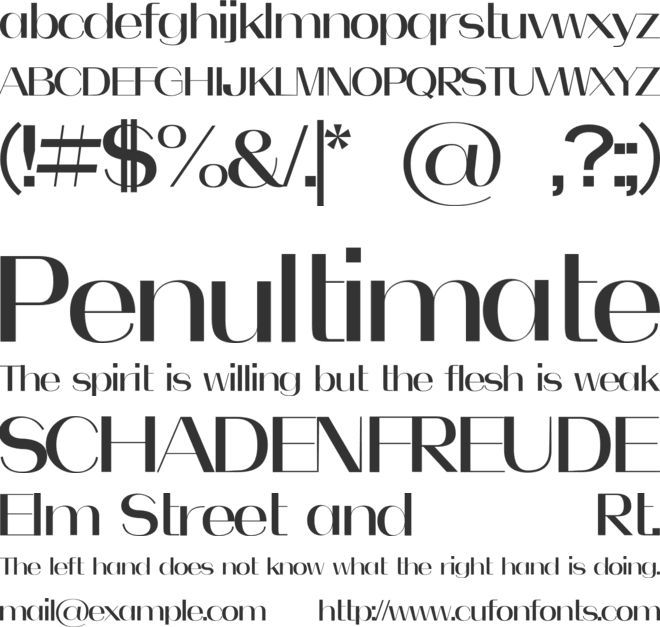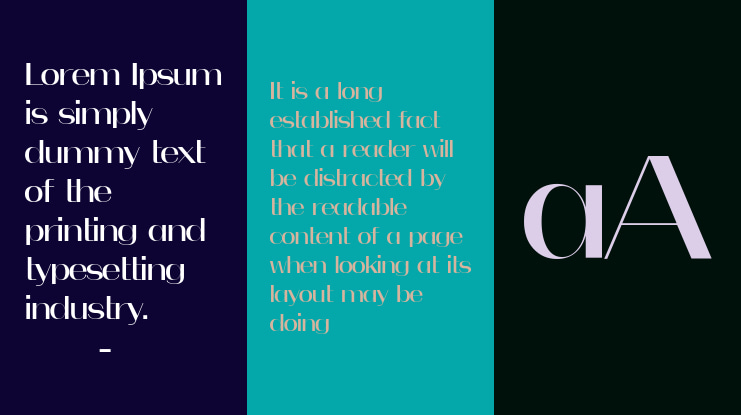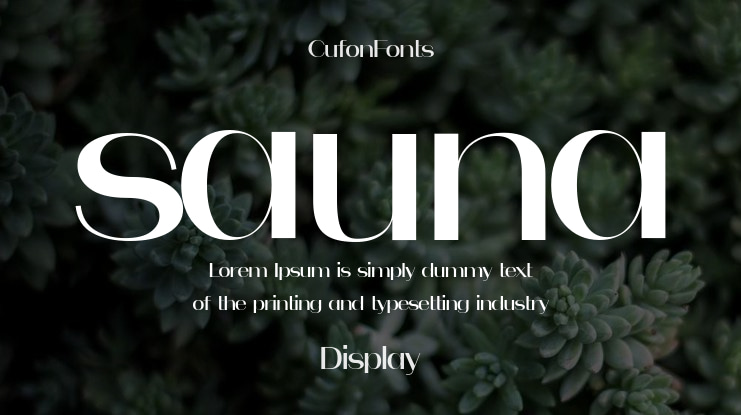
sauna Font Family
Sauna is a delicate sans serif with soft curves and multilingual support—ideal for poetic layouts, minimalist branding, and editorial elegance.